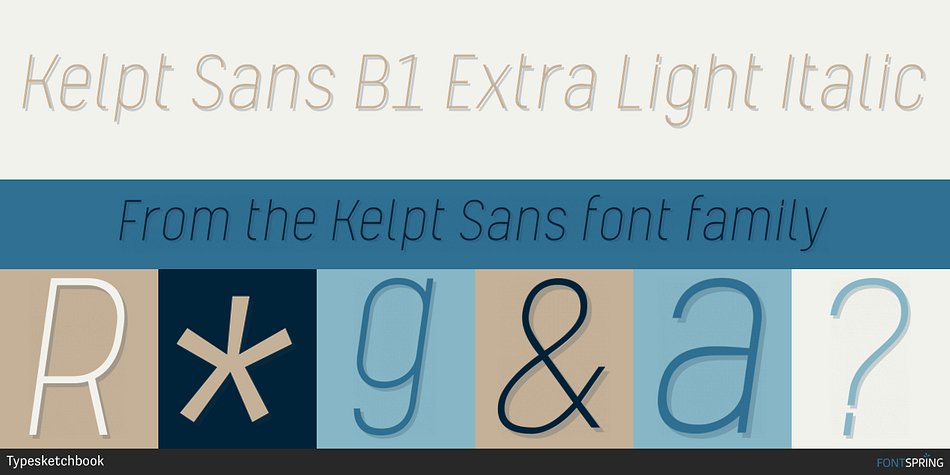
Kelpt Sans B1 Extra Light Italic
Designed by Chatnarong Jingsuphatada and Somchai Jingsupathada, Kelpt Sans is a sans serif font family. This typeface has thirty-six styles and was published by Typesketchbook.
Kelpt Sans is an altered modified from the form of the original Kelpt typeface. Designed to be more Corporate, the font family has flat terminals that harmonizes with sharp corners. With all of these features, “Kelpt Sans” is a prominent, eye-catching and unique typeface. It comes with 9 weights with 2 Hight options in order to suit for a multifunctional usage, especially for cooperative work, such as website, magazine, editorial, publishing, as well as packaging.
Designers Chatnarong Jingsuphatada, Somchai Jingsupathada